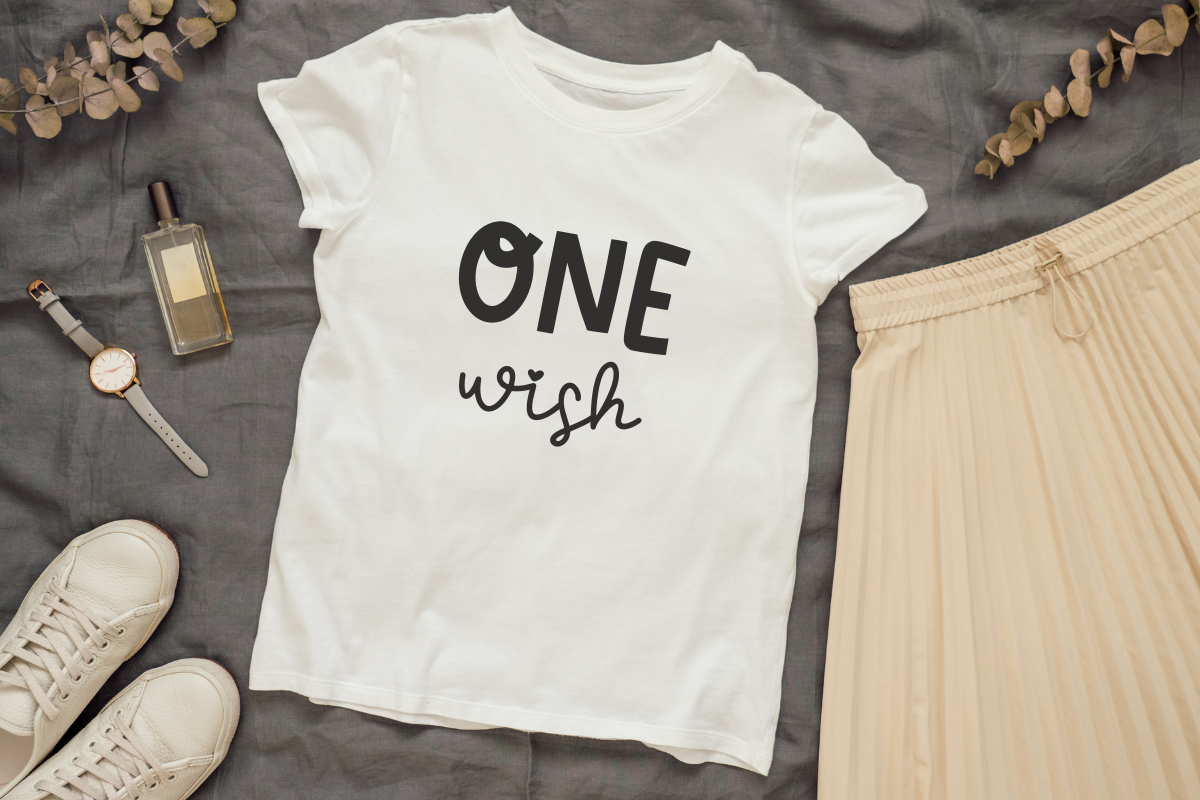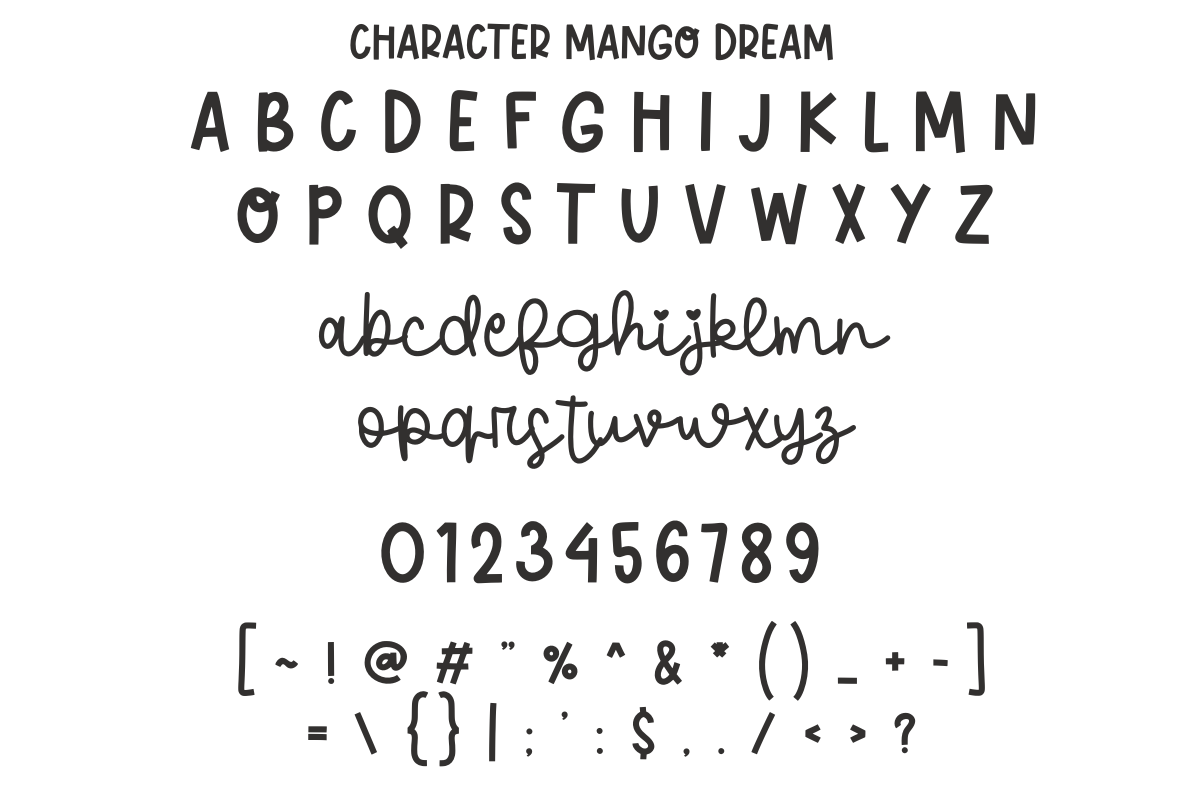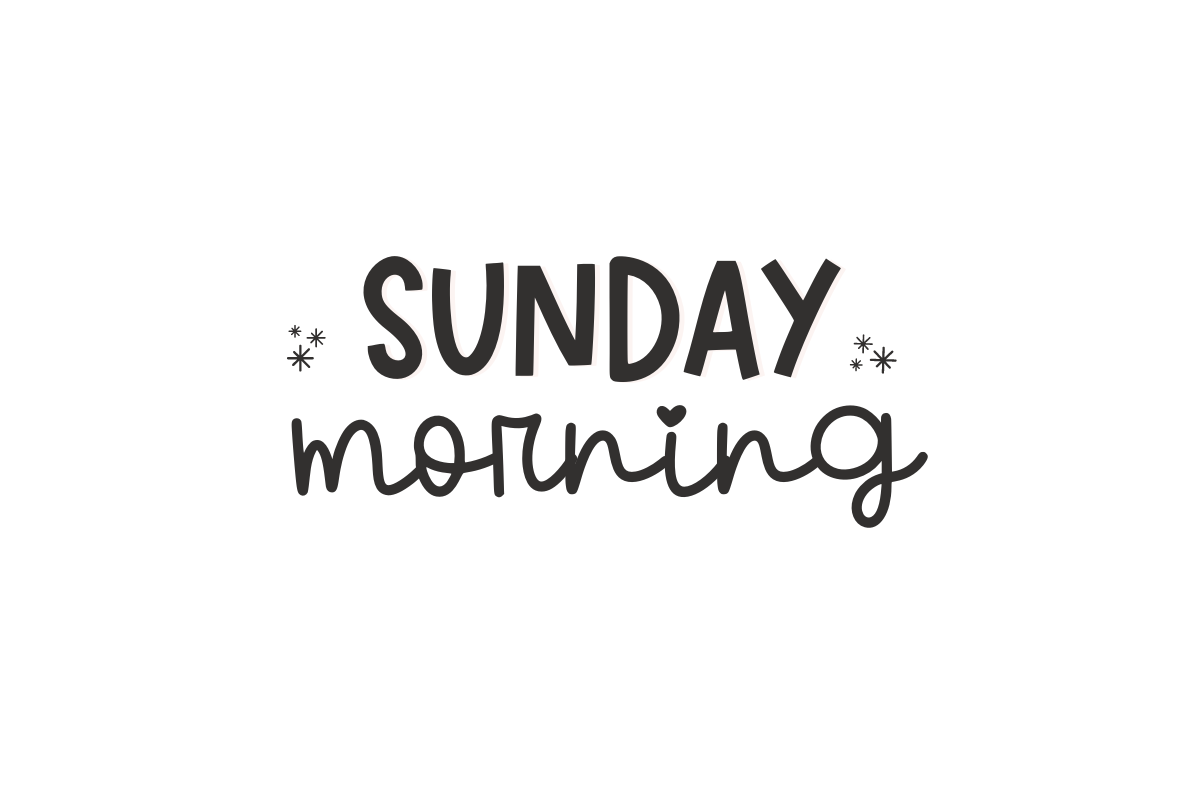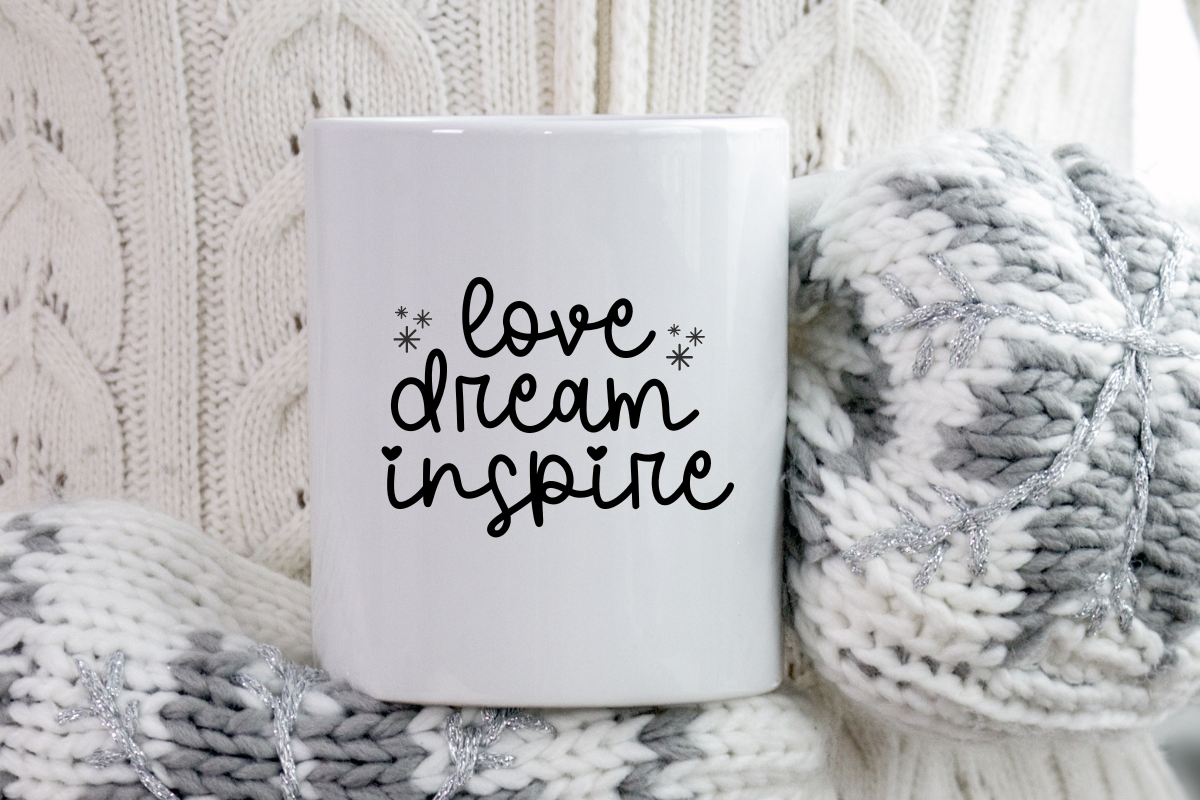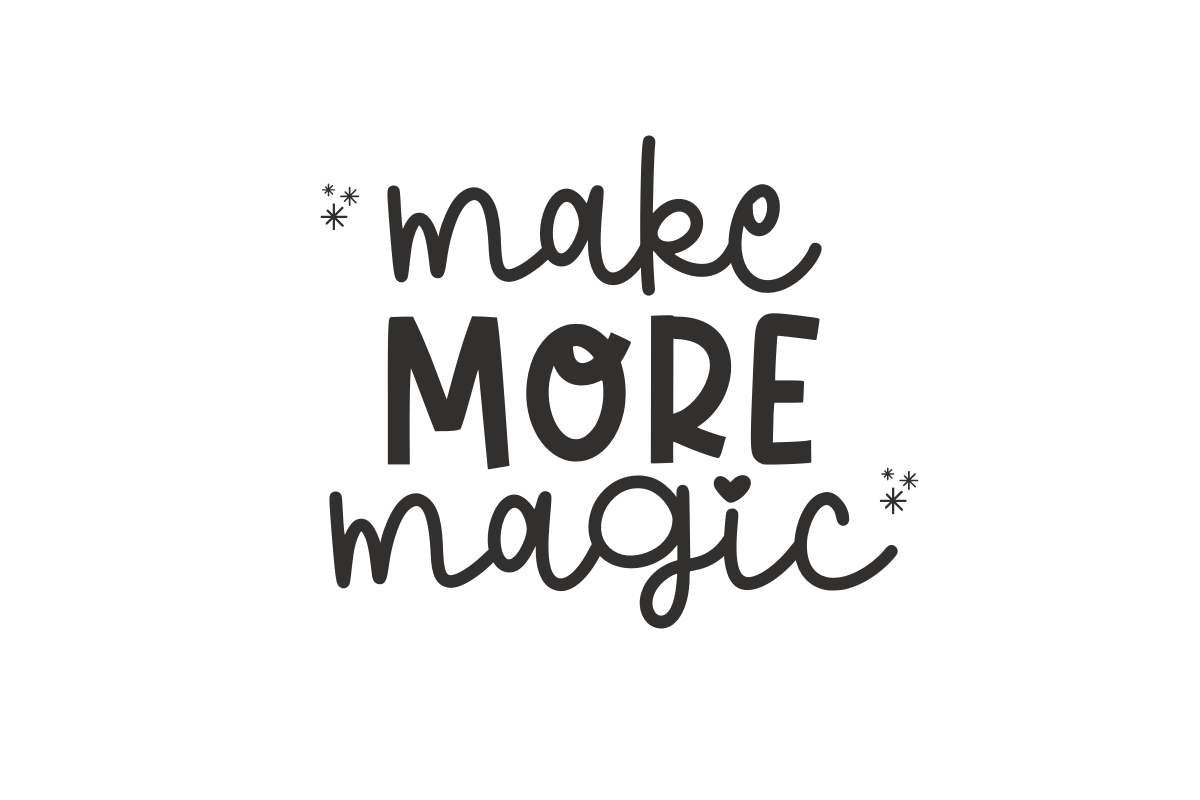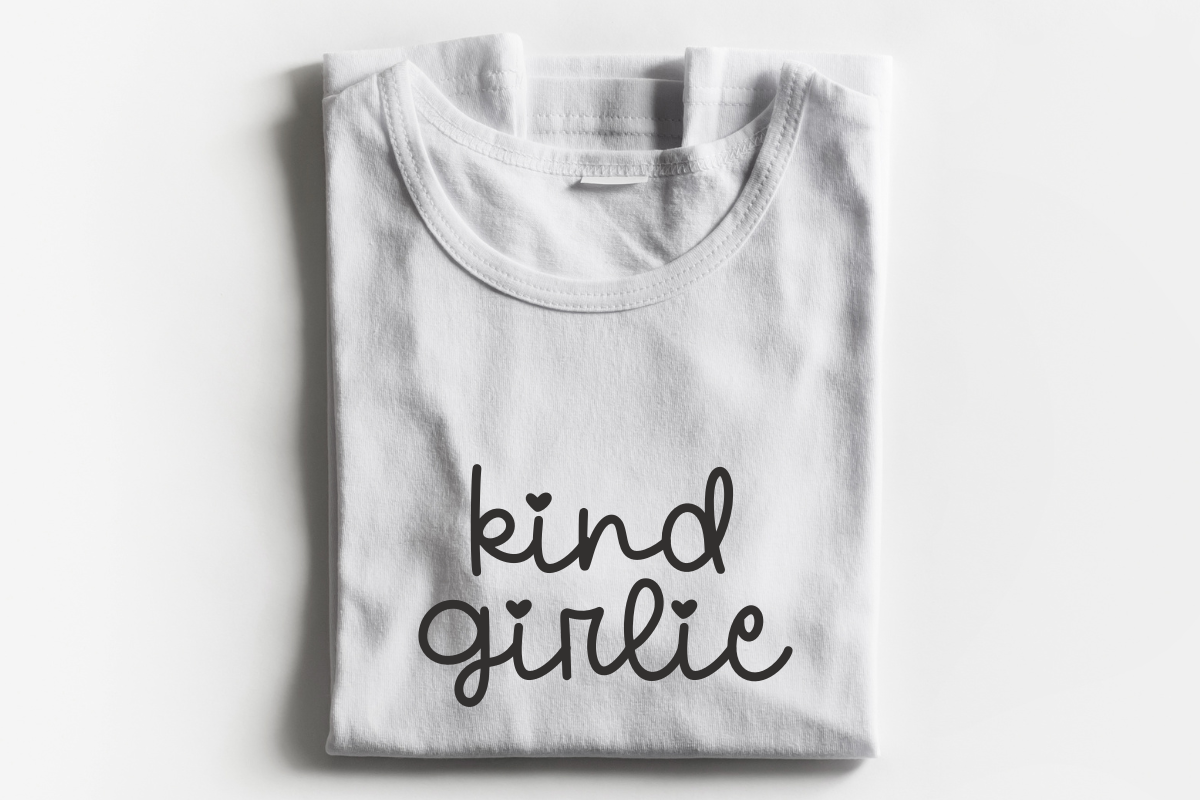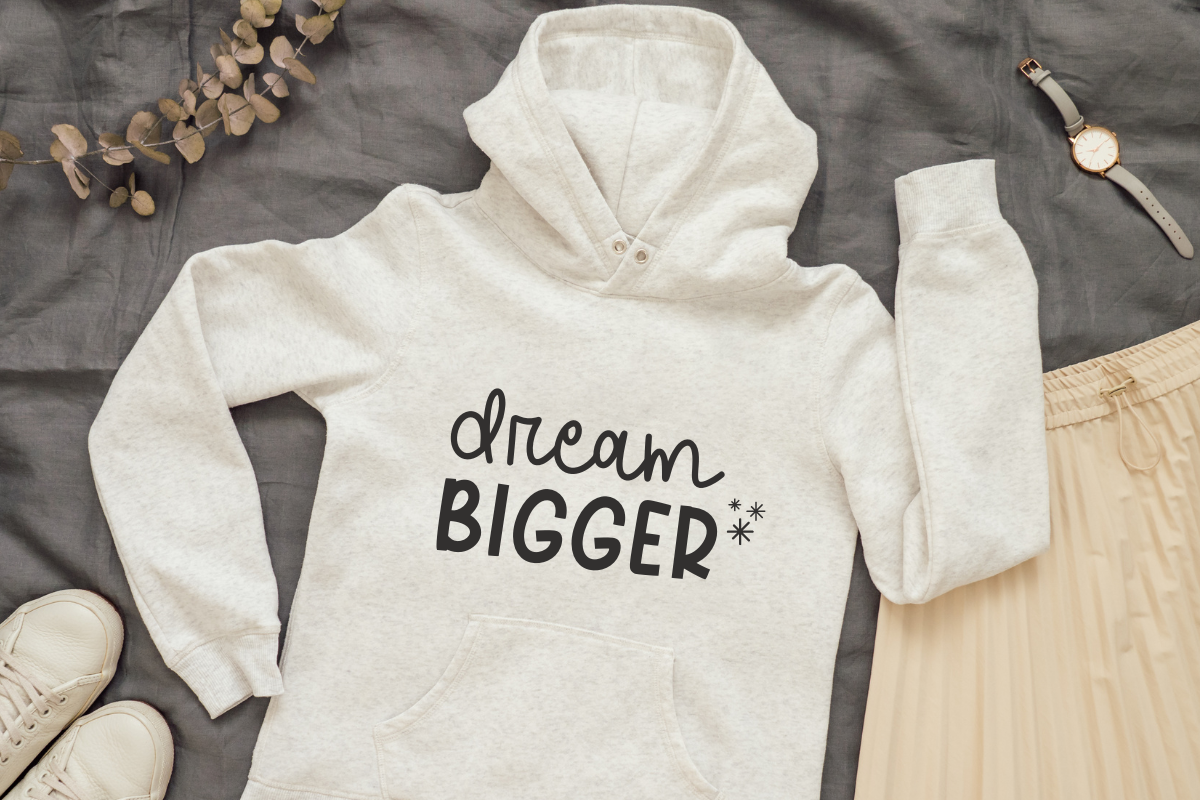
Mango Dream
Mango Dream, an enchanting blend of fonts perfect for amplifying charm in your design. This font artfully unites a handmade script in lower case letters, achieving an irresistible allure when merged with the upper case counterparts. Uniquely versatile, Mango Dream gracefully accommodates a diverse palette of applications. Be it crafts, apparel such as t-shirts and hoodies, merchandise like mugs, and packaging, it elegantly imparts a chic touch.